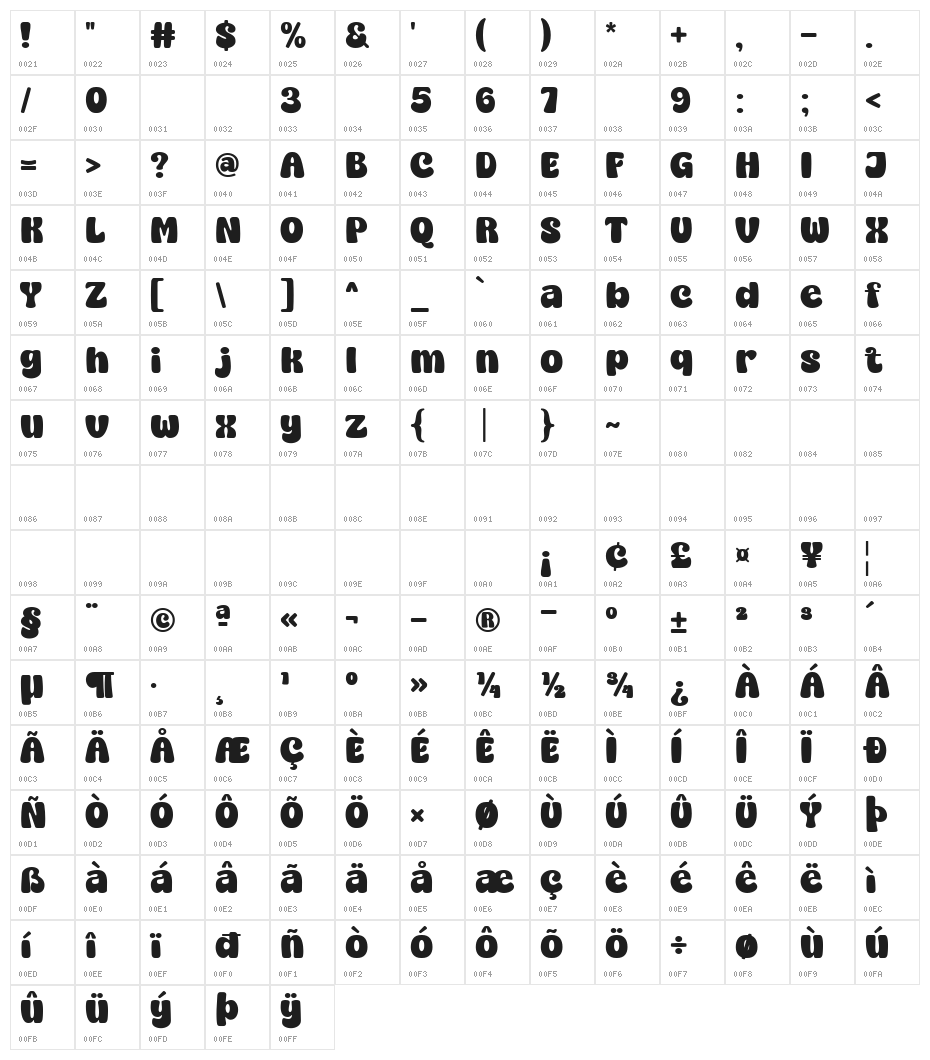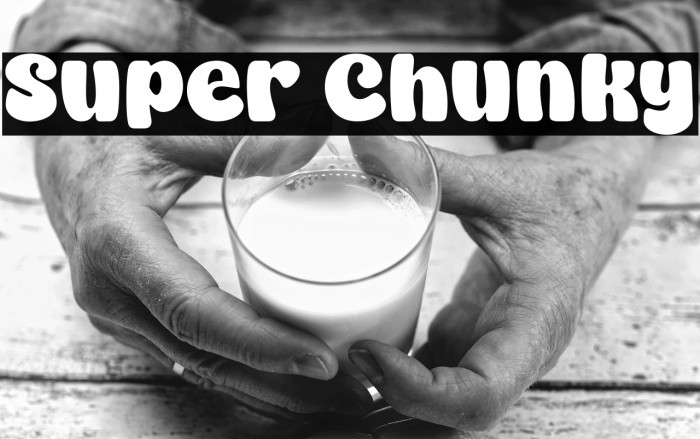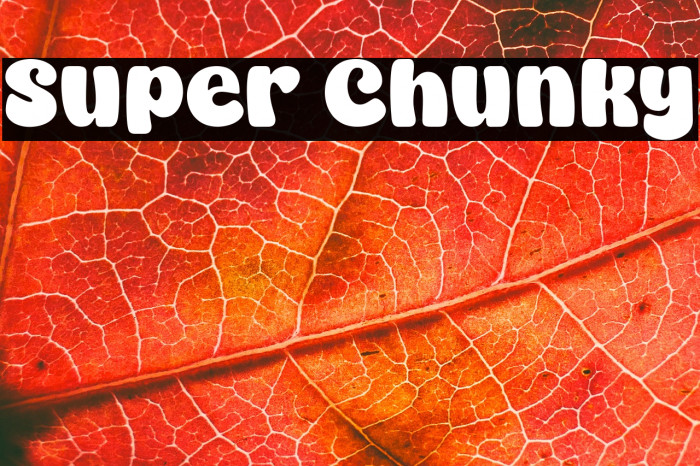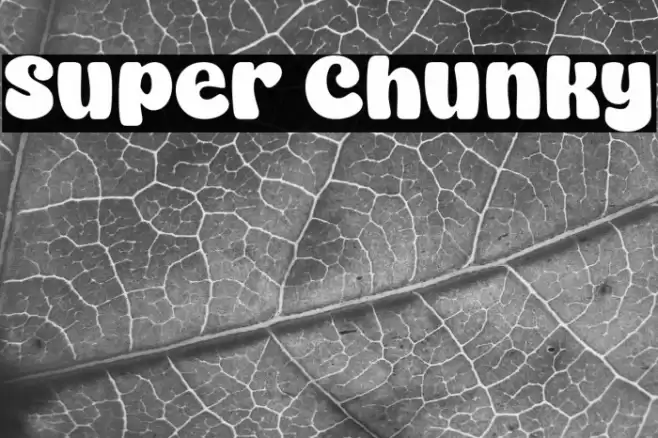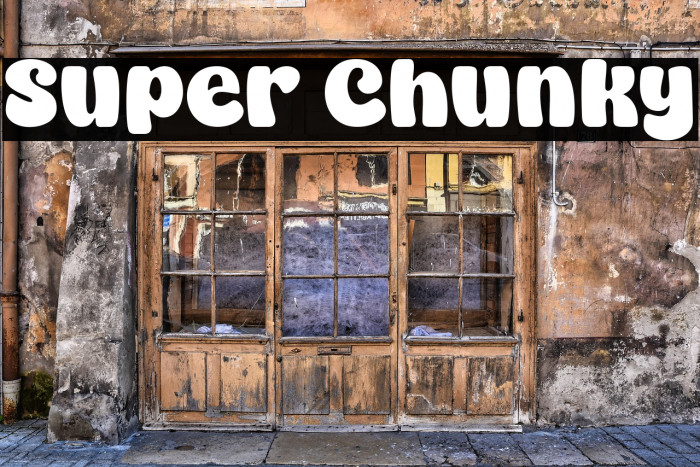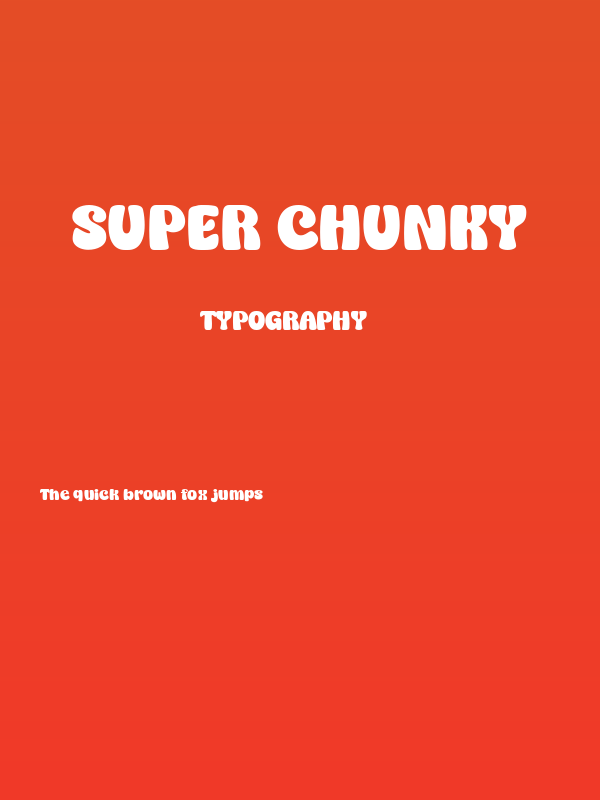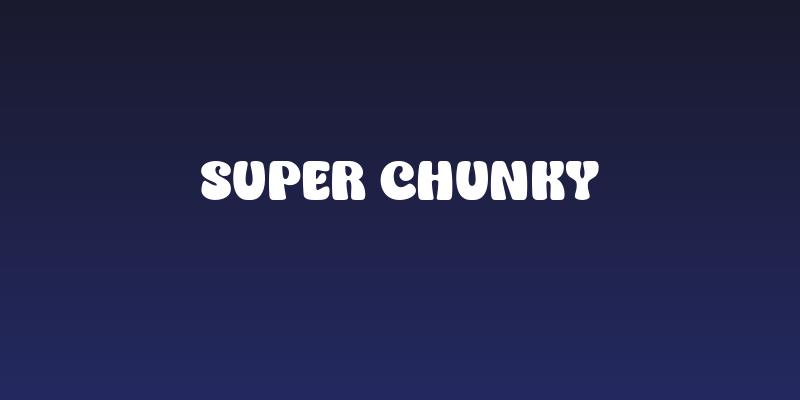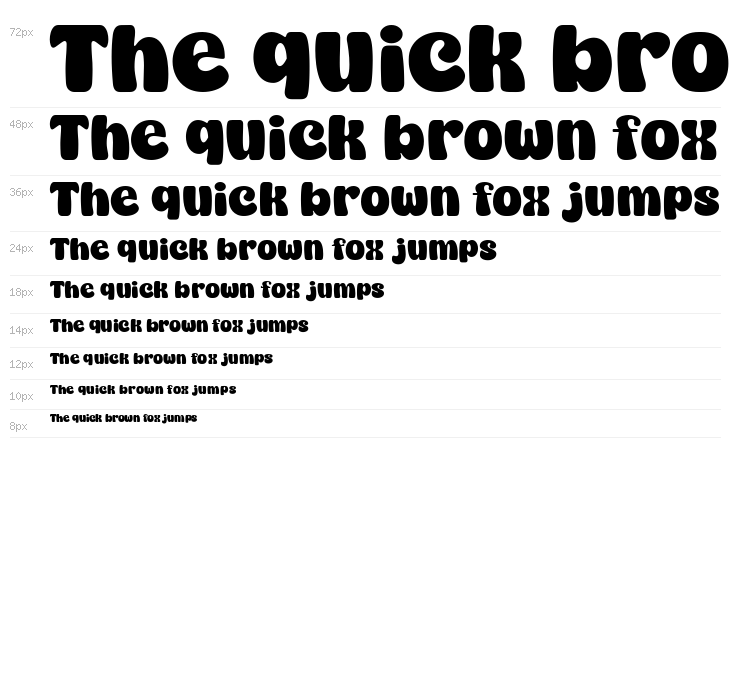
Super Chunky Font
Super Chunky Description
This font features a bold and playful design with thick, rounded characters that exude a sense of fun and whimsy. The letters are uniformly chunky, giving them a substantial presence on the page. The rounded edges and consistent stroke width contribute to a friendly and approachable aesthetic, making it ideal for designs that aim to capture attention and convey a sense of joy. The numerals and special characters maintain the same bold style, ensuring a cohesive look across all text elements. This font is particularly well-suited for projects that require a strong visual impact, such as posters, advertisements, or branding materials.
| Proposed Projects | Ideal for posters, advertisements, branding, children's books, and playful design projects. |